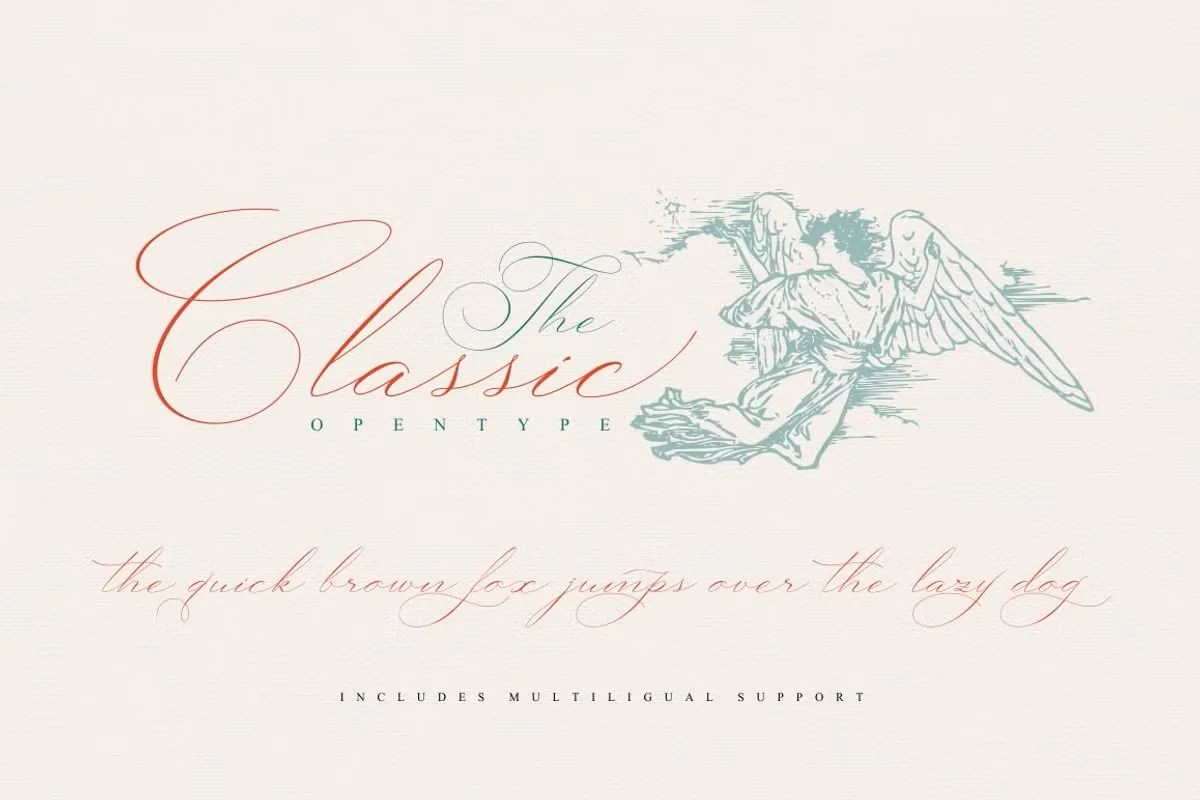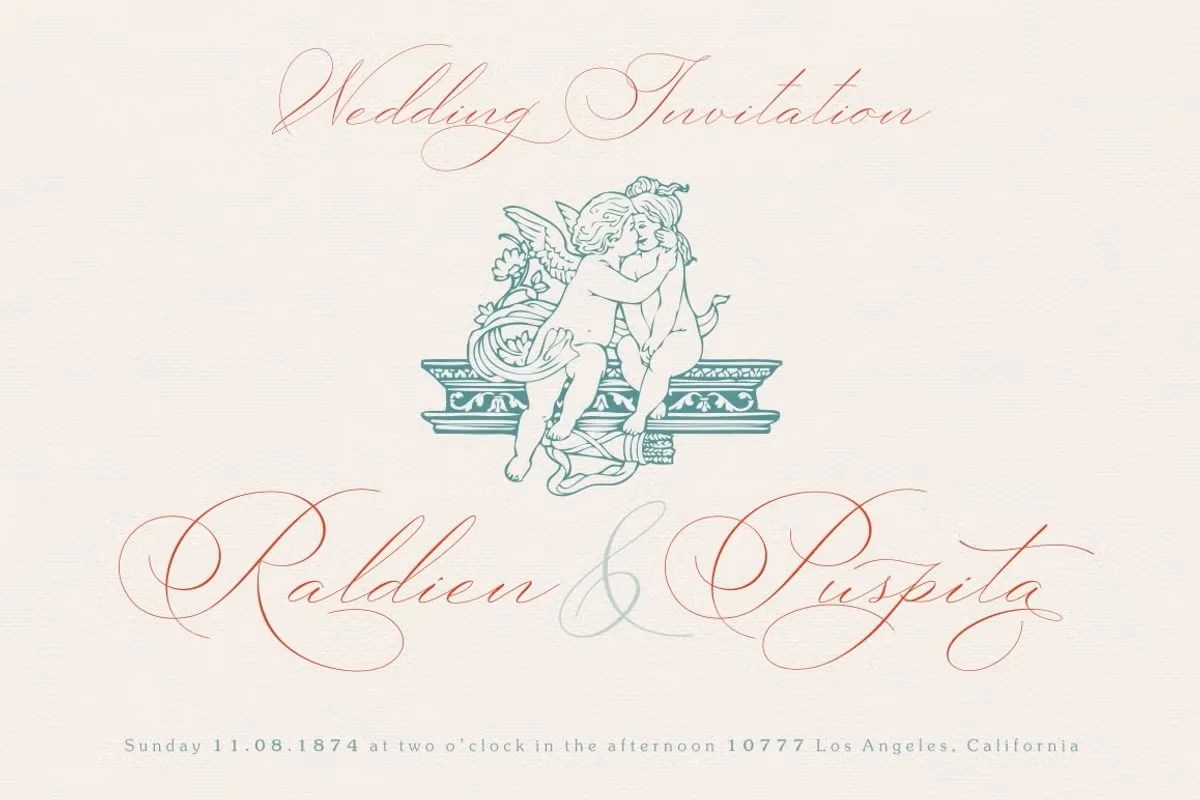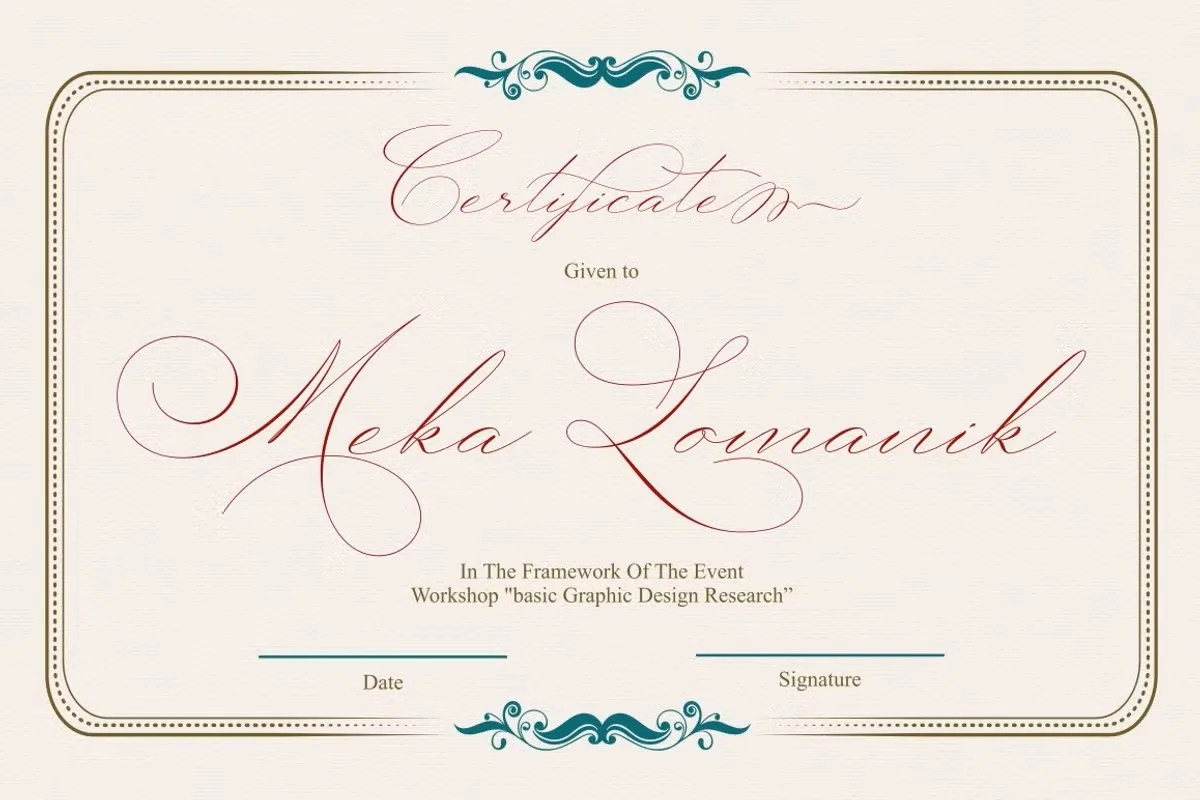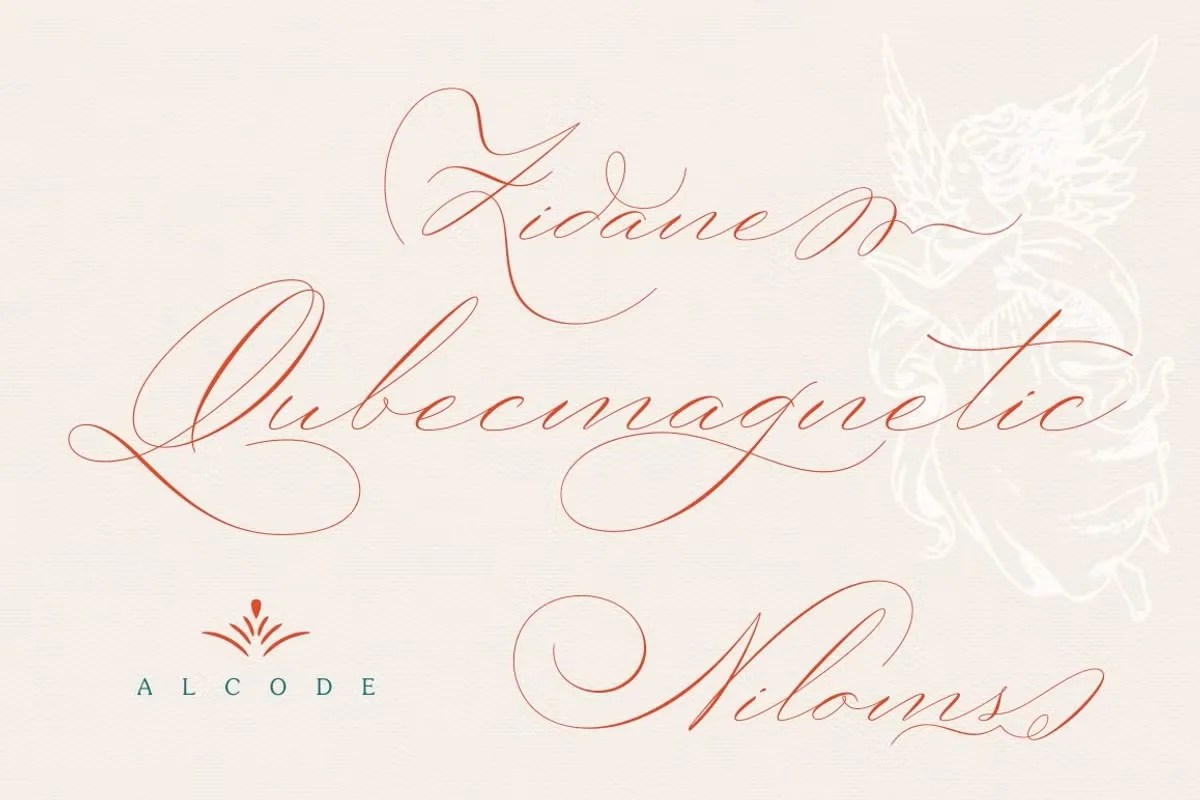
Lile Dahliya by Alcode, a gracefully flowing script font that blooms with romantic charm and elegance. Lile Dahliya features beautiful, sweeping letterforms and a natural, handwritten rhythm, designed to give your text a personal and heartfelt quality. This font is perfect for any project that calls for a touch of sophistication and delicate beauty.
Bring your wedding invitations to life, create stunning logotypes for photographers or event planners, and design beautiful social media quotes that connect with your audience. Its inherent grace makes it an excellent choice for signature-style branding, heartfelt greeting cards, and any design that needs to feel both personal and exquisitely crafted.
• Elegant and flowing script style
• Features beautiful, sweeping letterforms
• Ideal for invitations, logos, and signature
• Adds a romantic and personal touch
Lile Dahliya